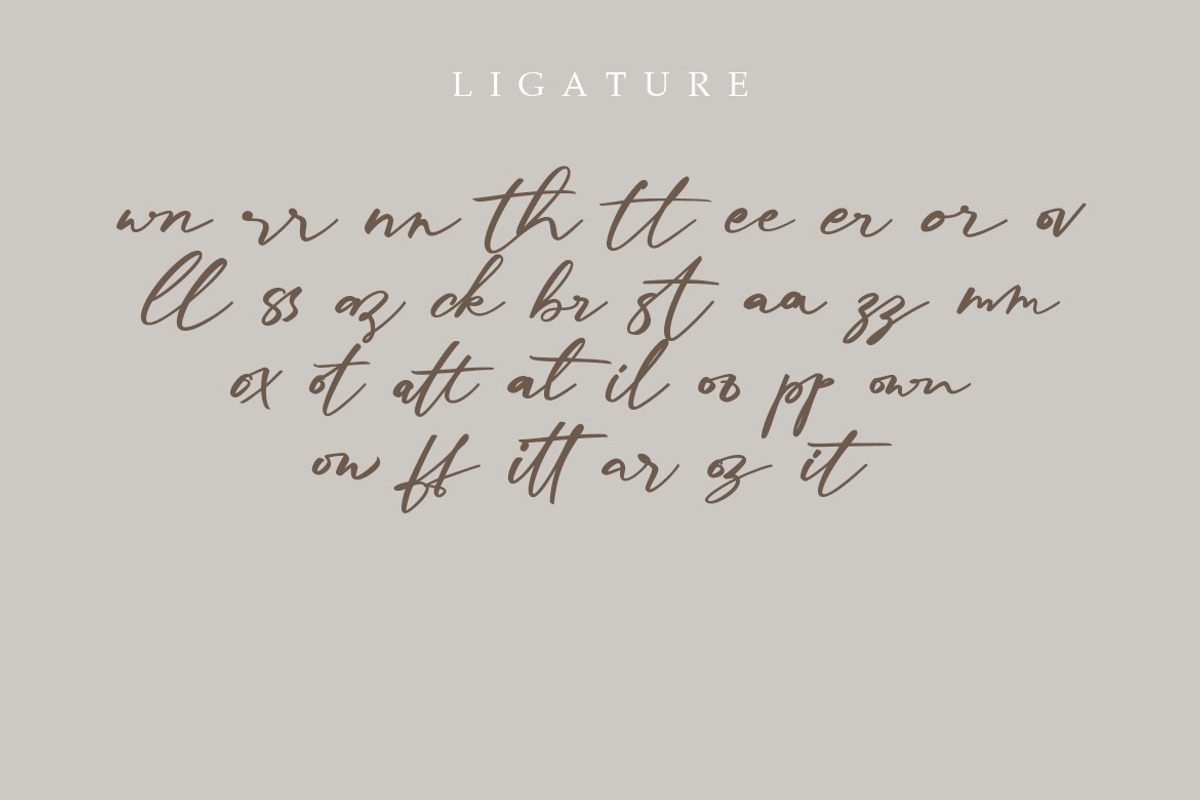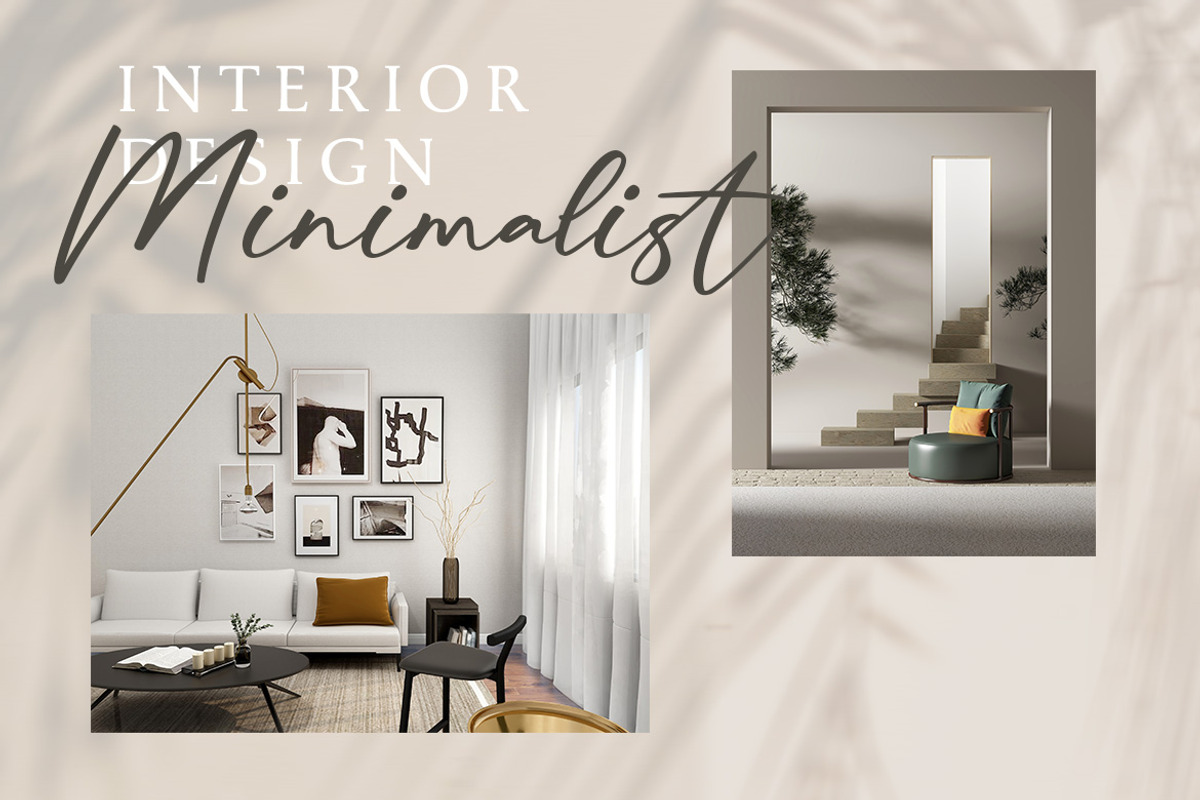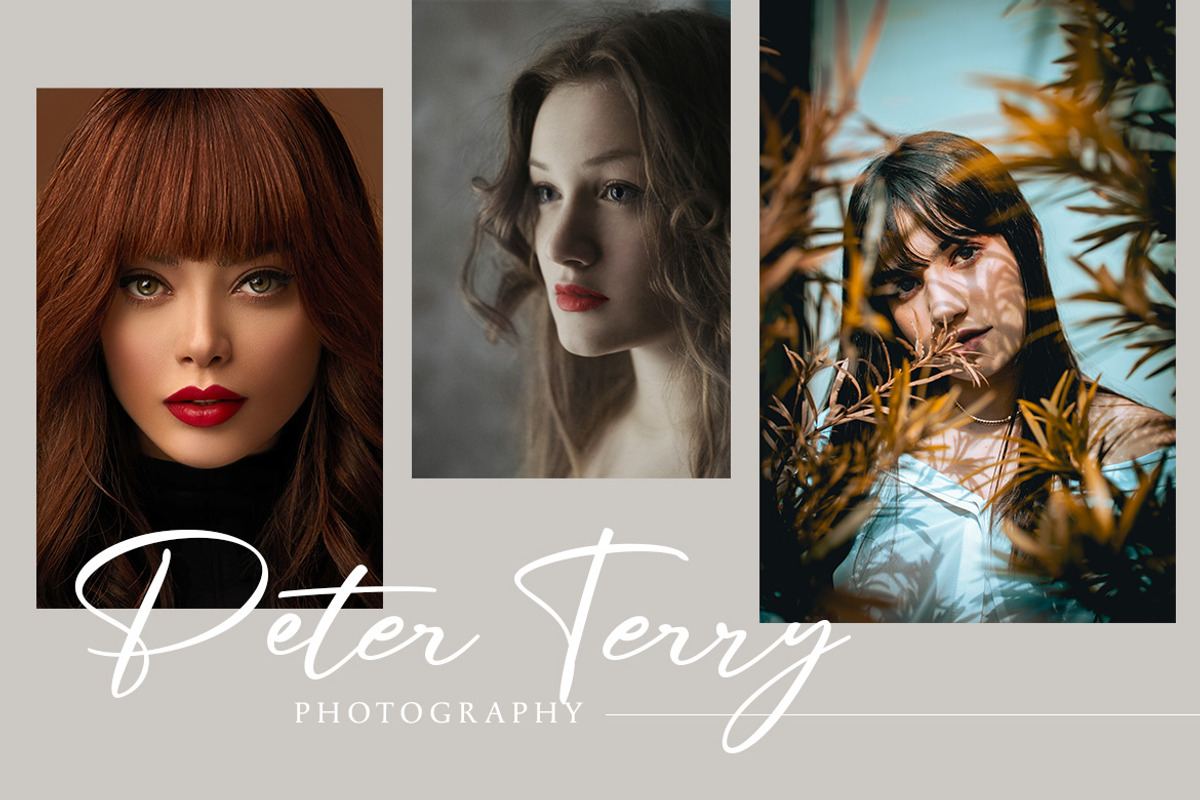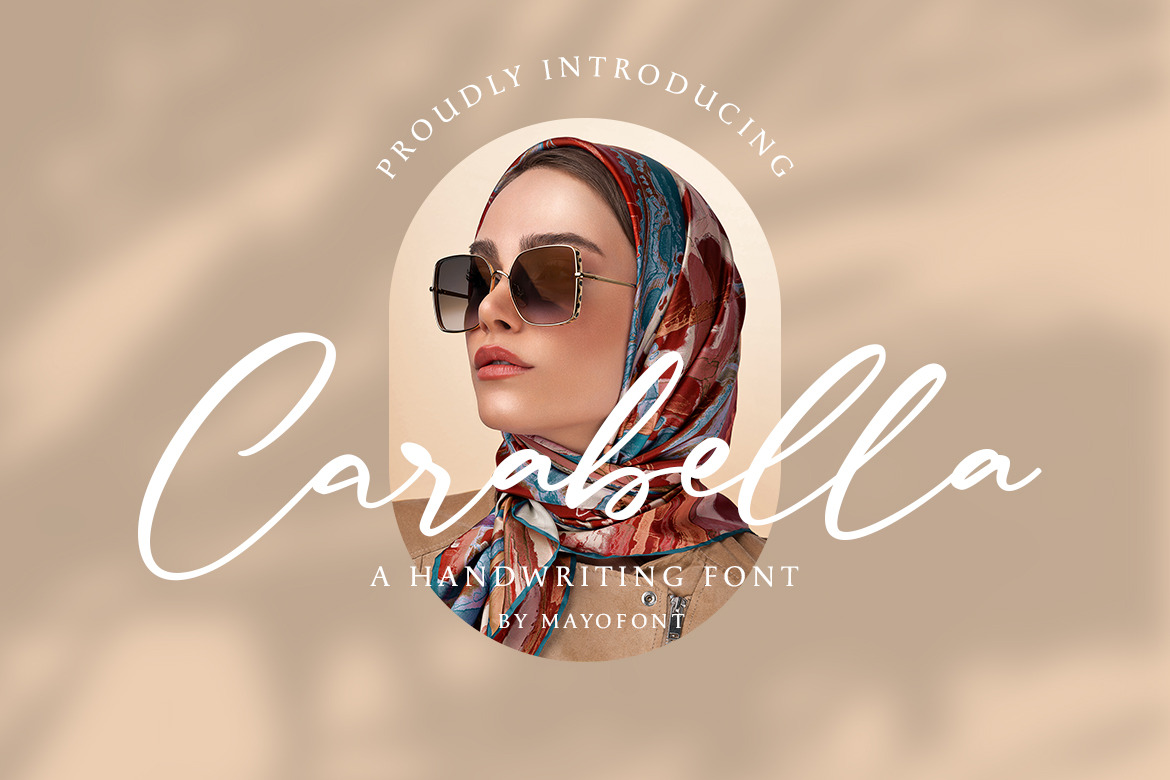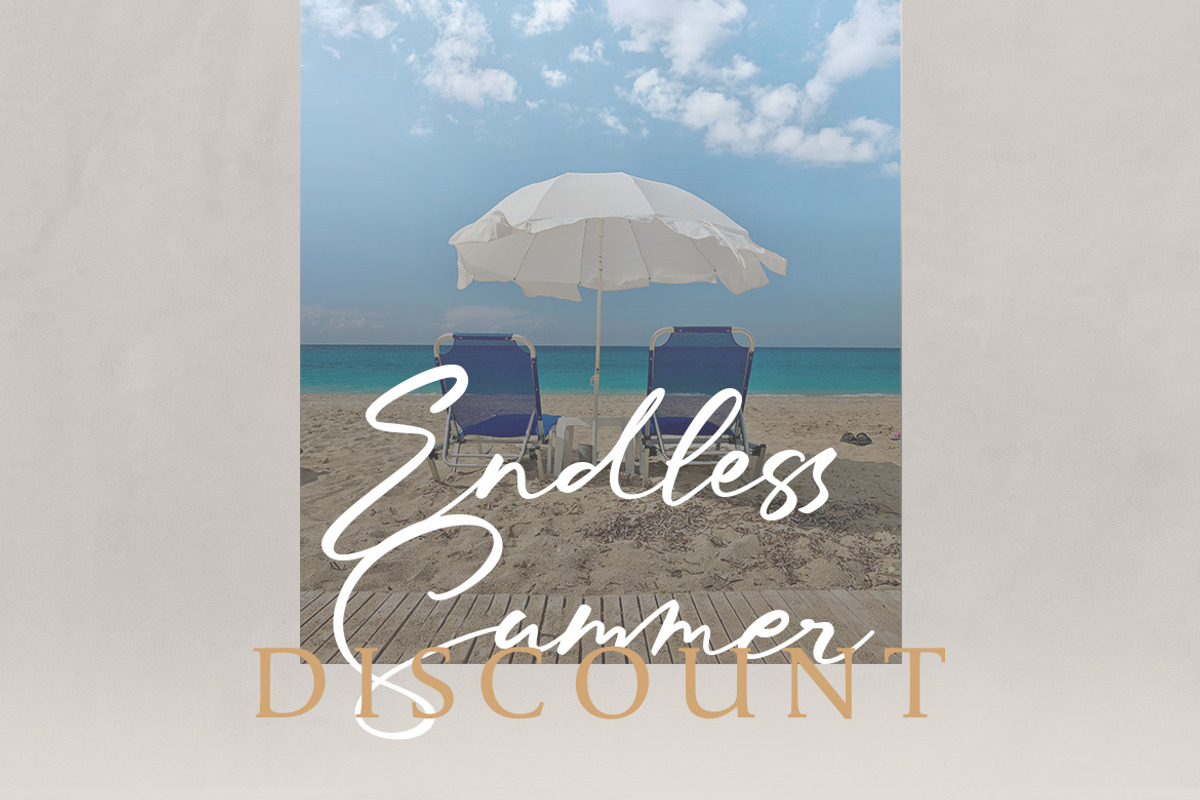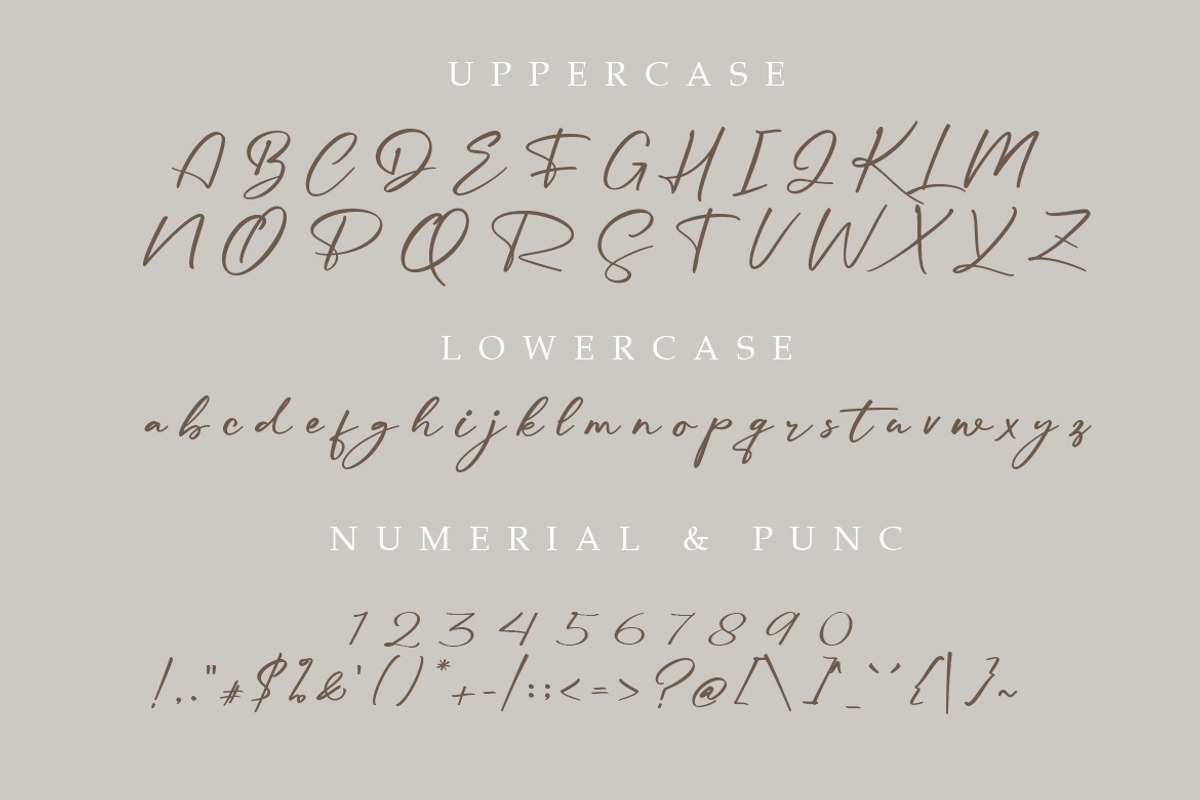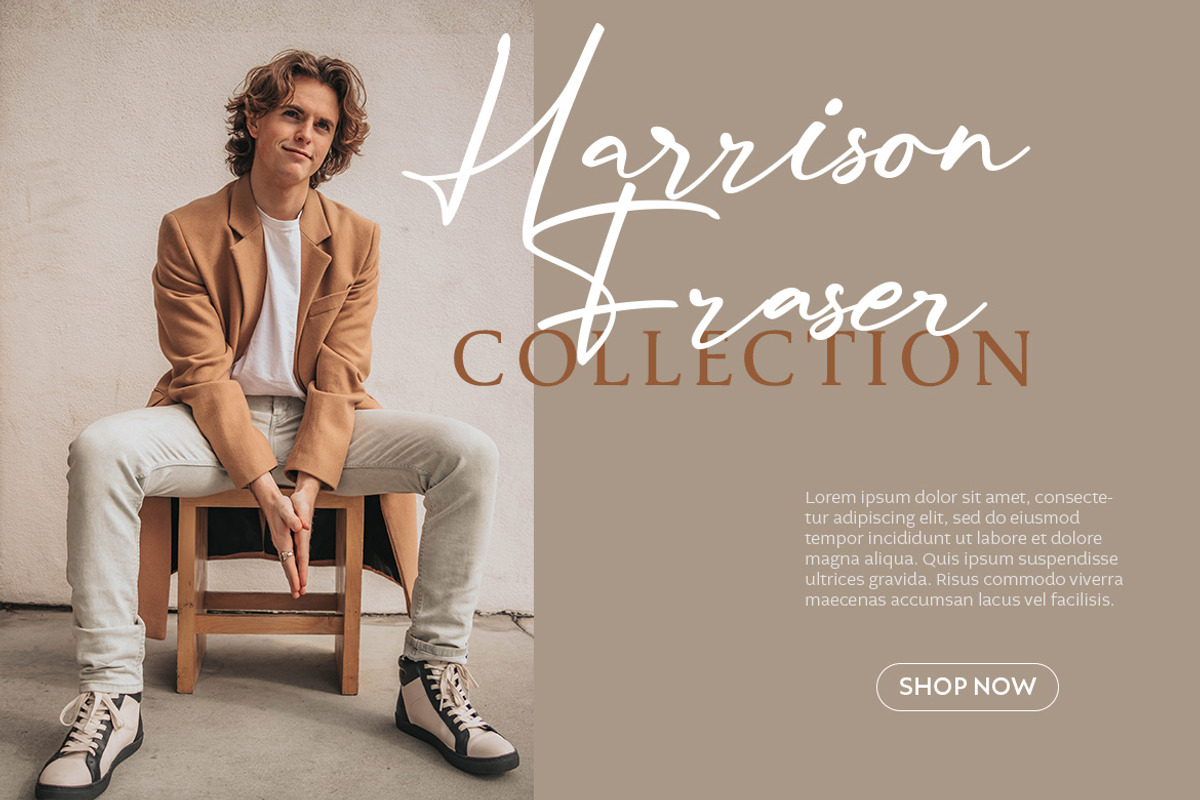
Carabella - Handwritten Font
Introducing our captivating font, where script meets handwriting in perfect harmony. This exquisite blend of styles brings a touch of elegance and personal charm to your designs. With graceful strokes and handcrafted details, our font invites readers to indulge in the beauty of handwritten artistry. Each character tells a unique story, capturing the essence of individual expression.
- multilingual support & ligature